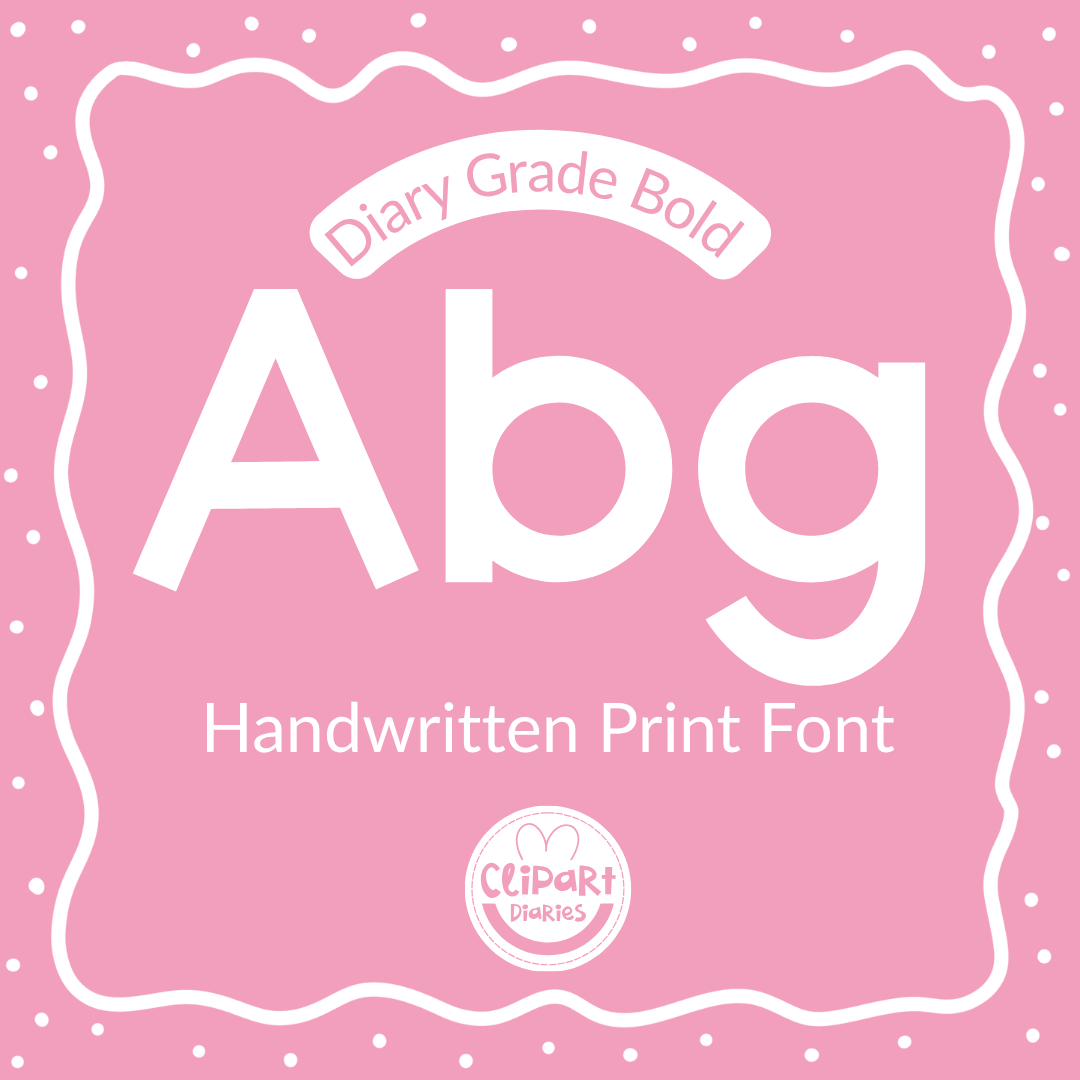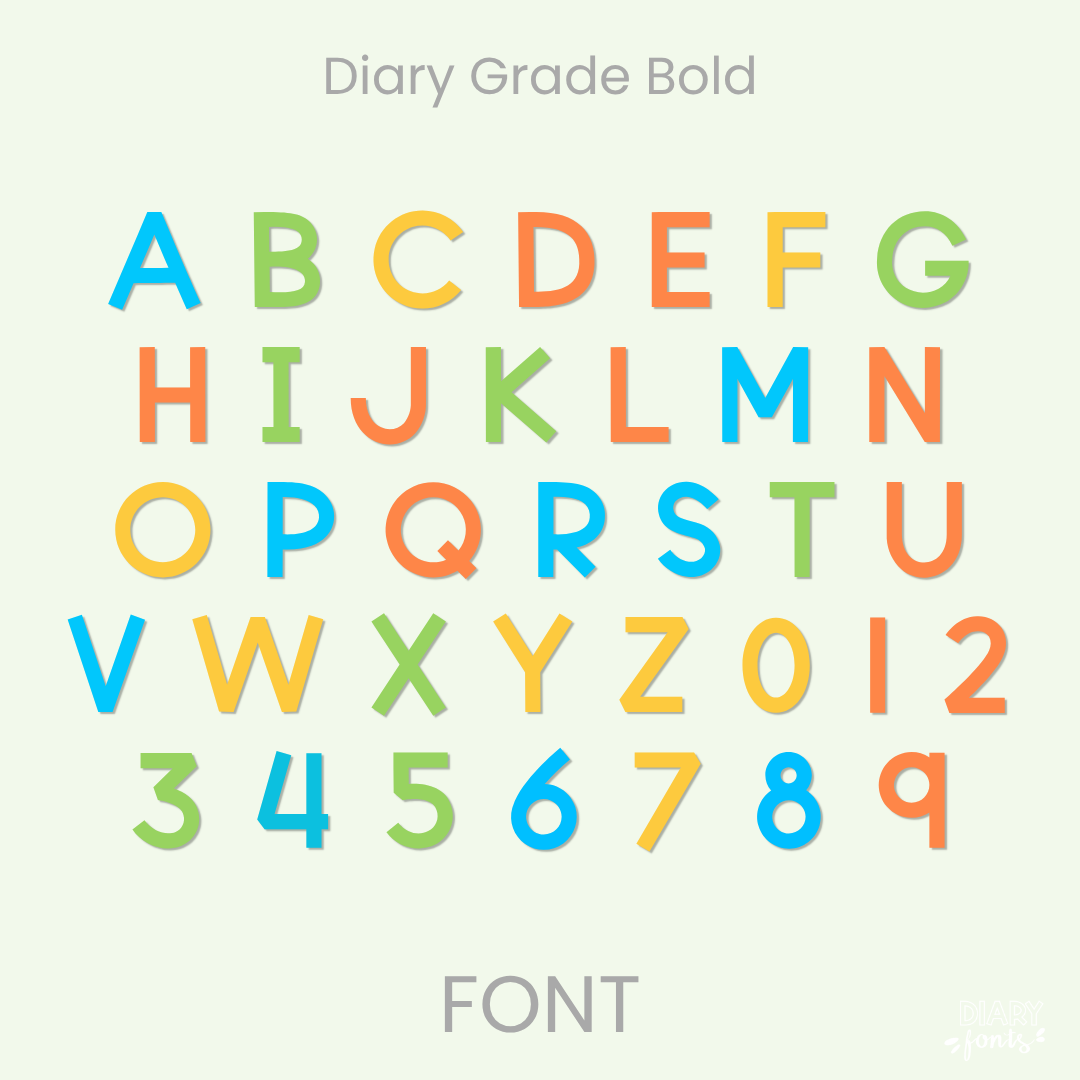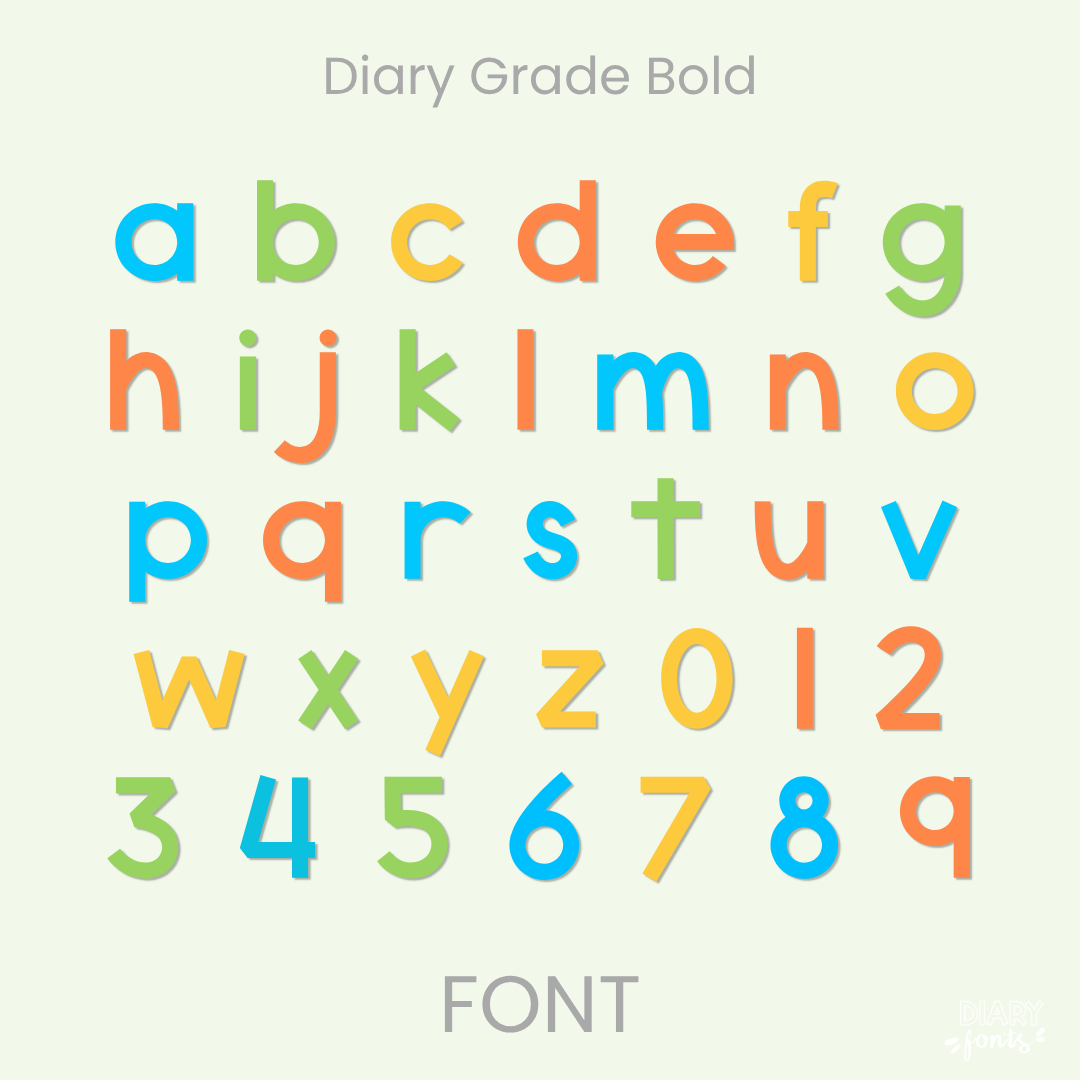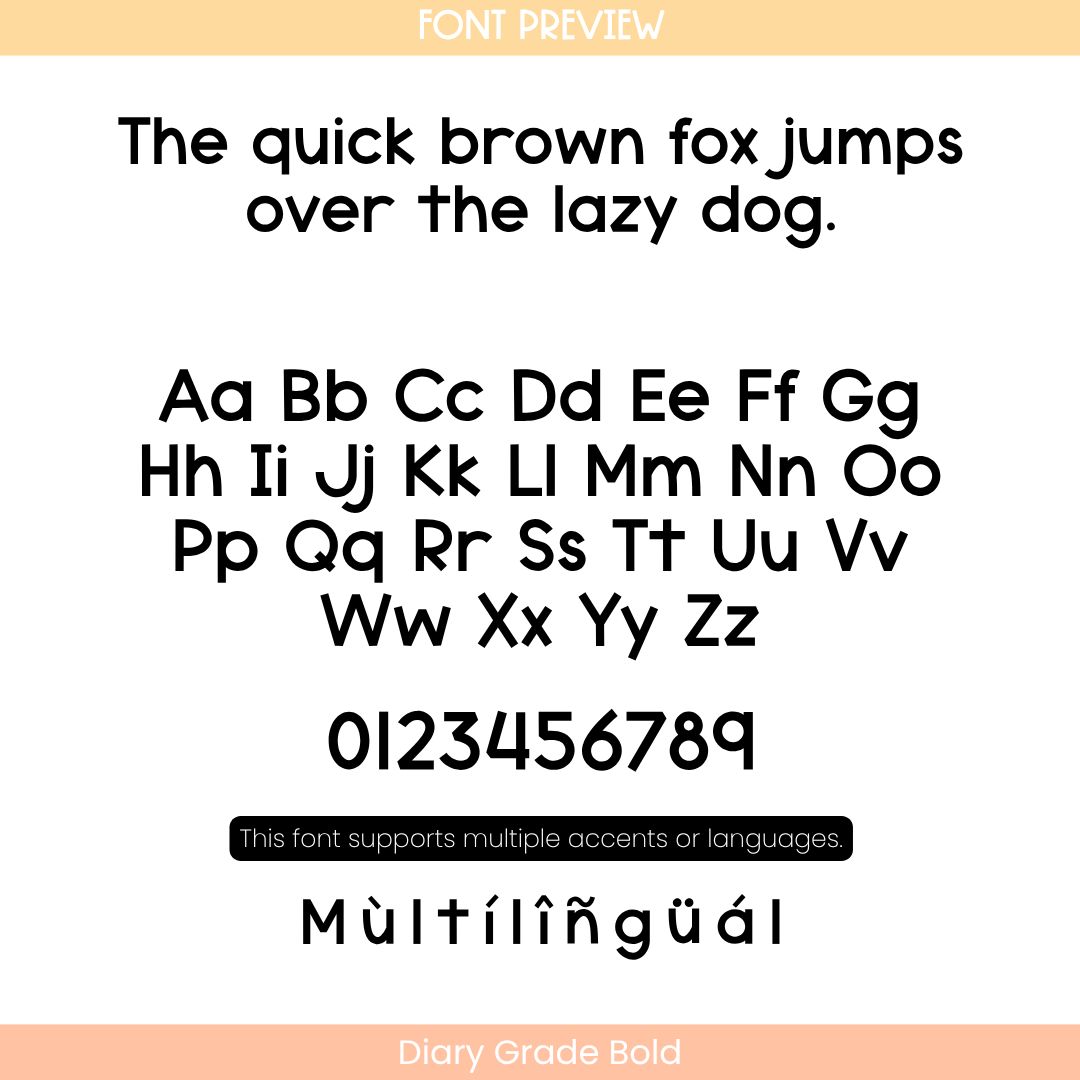
If you want to give your teaching materials a cheerful and high-impact presence, Diary Grade Bold is an excellent choice. It features thick, heavy, hand-drawn print characters with a clean and upright structure. Because it brings a powerful visual punch while keeping perfectly balanced letterforms and clear spacing, it is exceptionally easy for students to read from across a classroom. It is an ideal fit for bold worksheets, daily morning slides, bulletin board displays, and eye-catching resource covers where legibility and emphasis are your top priorities. The font includes a full set of uppercase and lowercase letters, numbers, and multiple accents to fully support different languages. It is ready for use in Canva, MS Office, and Adobe Apps, and it works flawlessly on the iPad with GoodNotes and Procreate. Whether for personal classroom decorations or commercial teacher resources, this font adds a bold, neat, and professional hand-drawn aesthetic to your work.
Diary Grade Bold Font
The Diary Grade Bold is a bold, high-impact handwritten font designed to give your resource headers, titles, and classroom displays a prominent and eye-catching look.